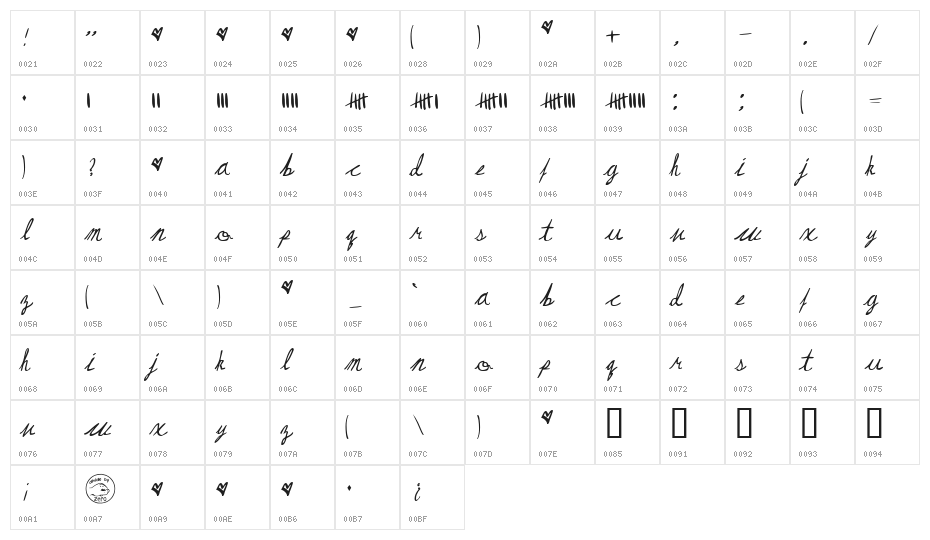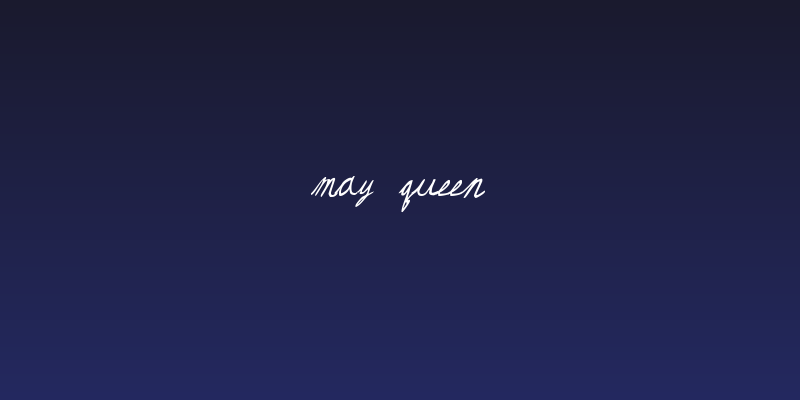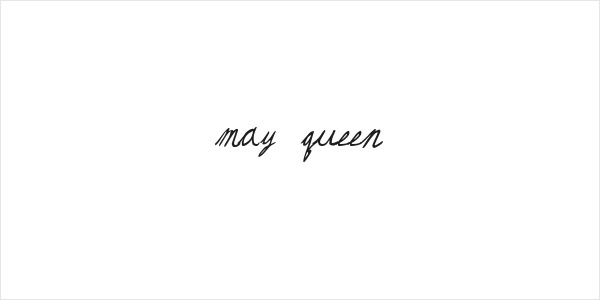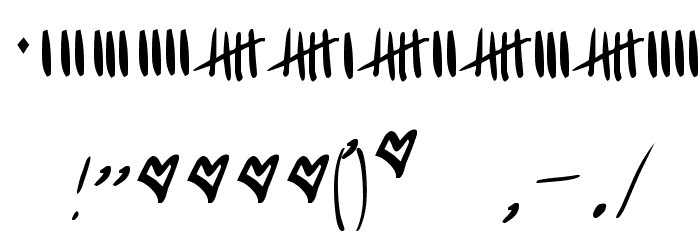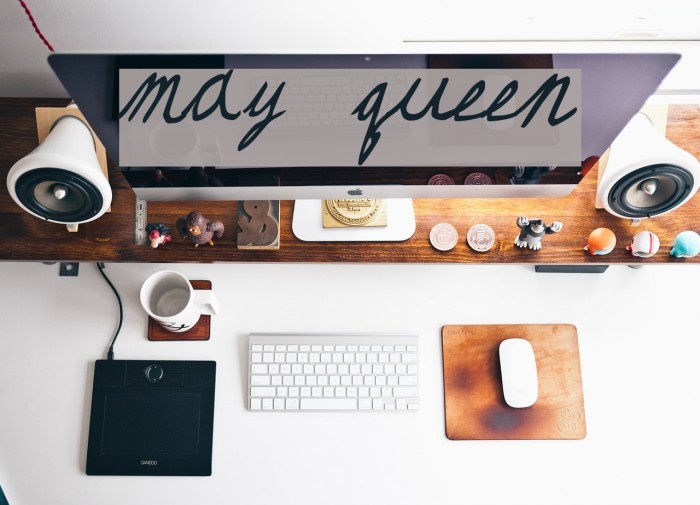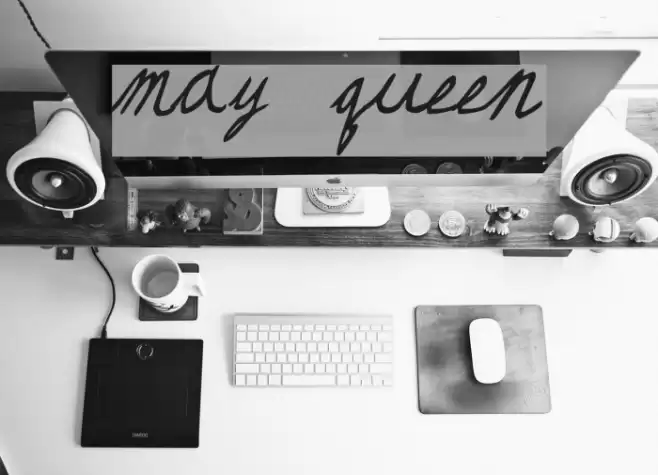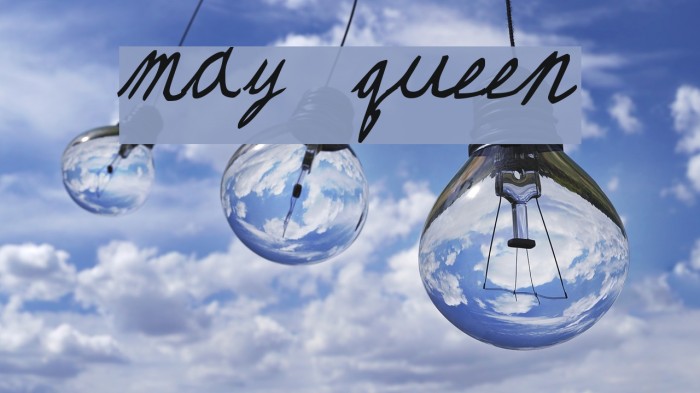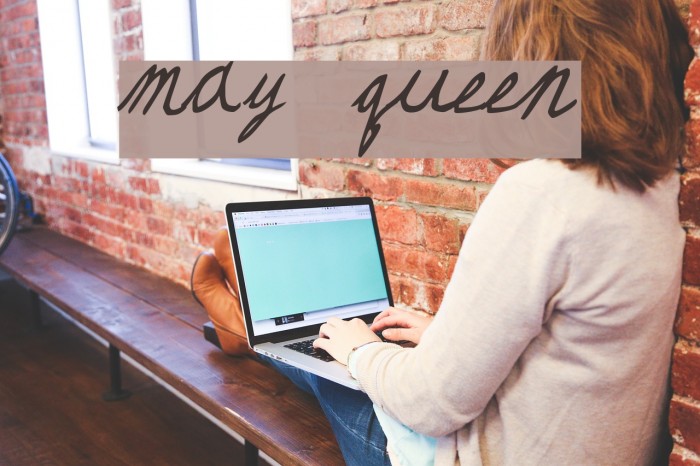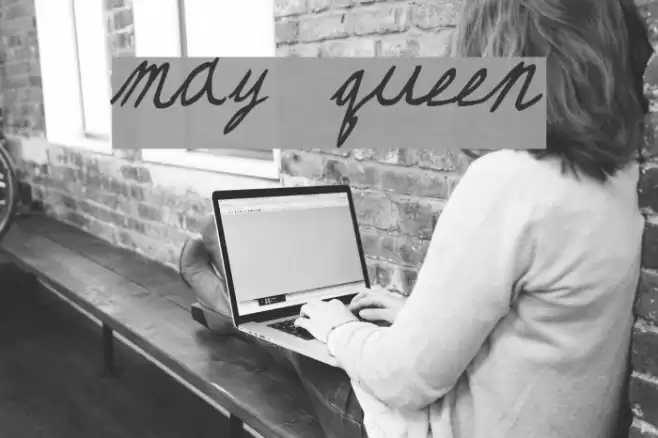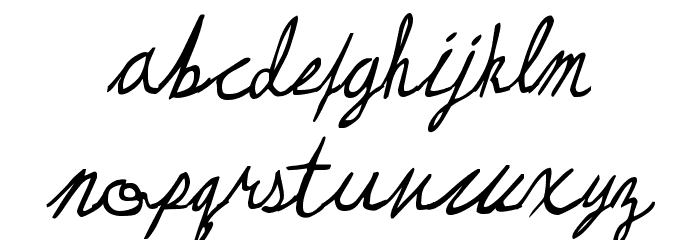
May Queen Font
| Cas d'utilisation | Logos, Invitations, Personal Correspondence |
| Projets proposés | Ideal for wedding invitations, personal letters, greeting cards, and branding materials that require a personal touch. |